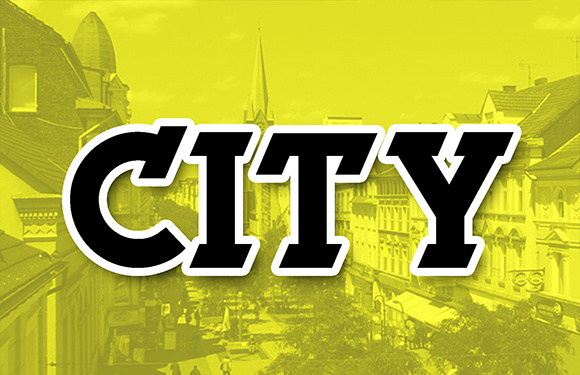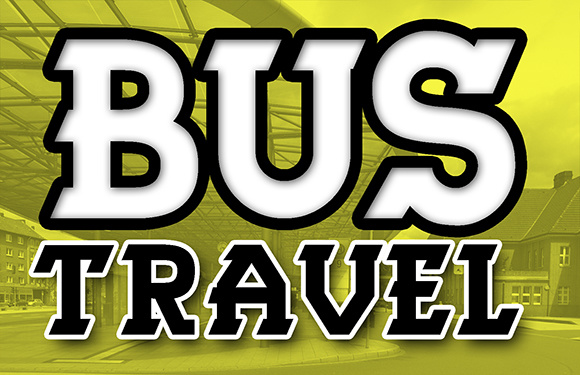
Introduction to Herne Font
Herne is an awesome fancy font that comes in Regular and Italic variants.
Herne is great for posters, banners, headlines, and much more .
Key Features of Herne Font
Why Choose Herne Font?
Herne Font offers exceptional quality and versatility, making it a valuable addition to your design toolkit. Whether you’re creating for personal projects or commercial use, Herne Font delivers professional results.